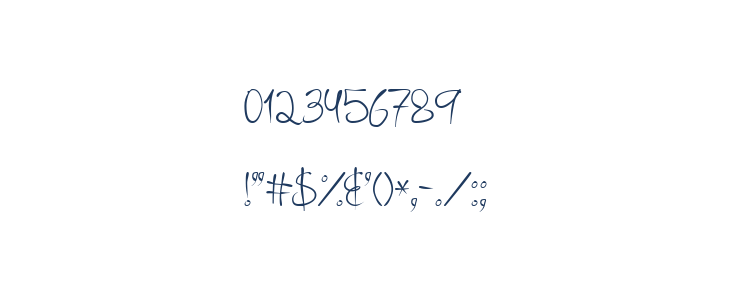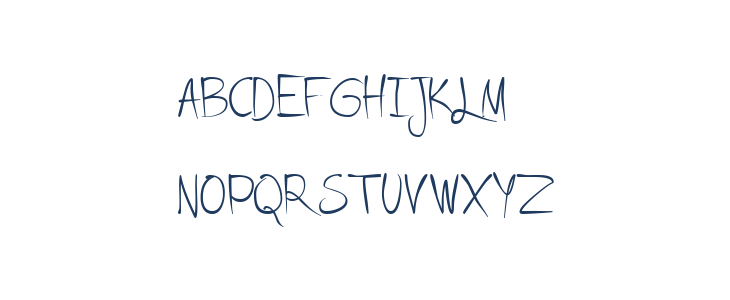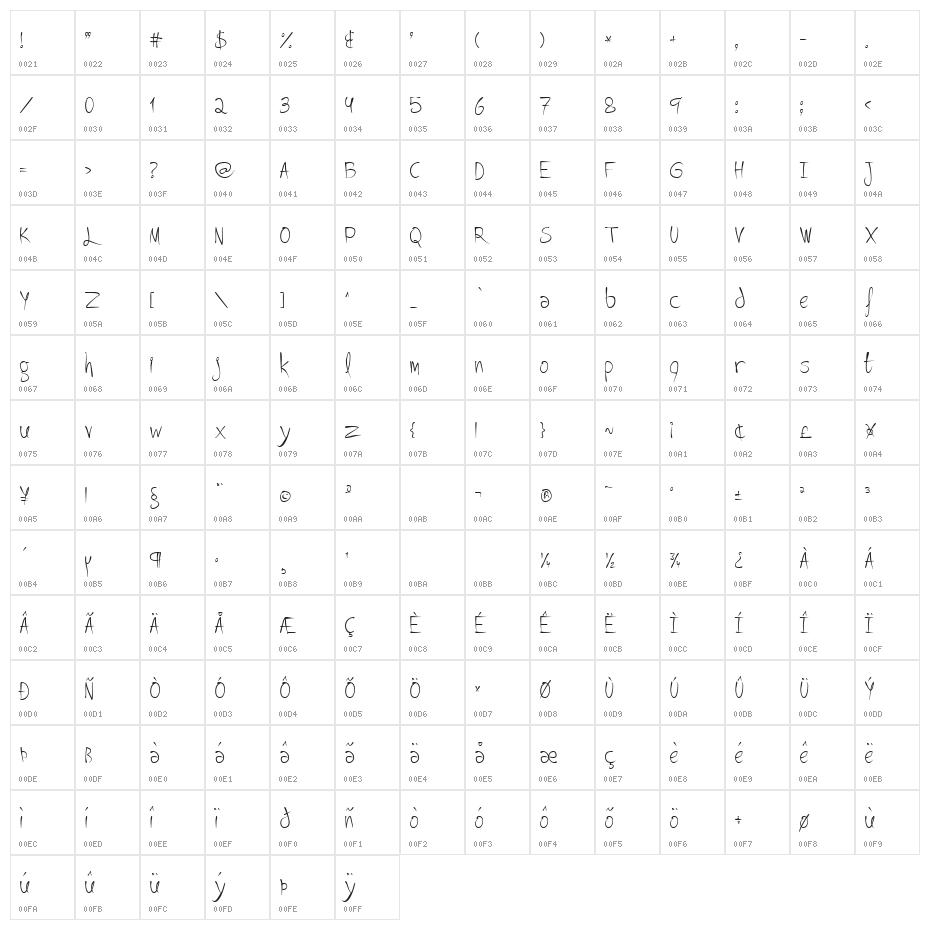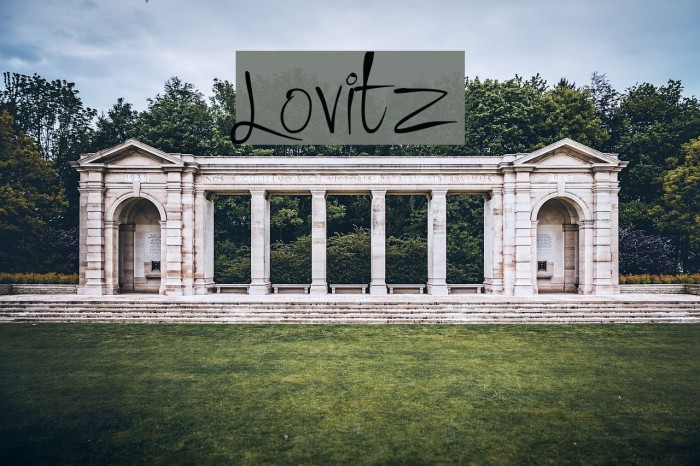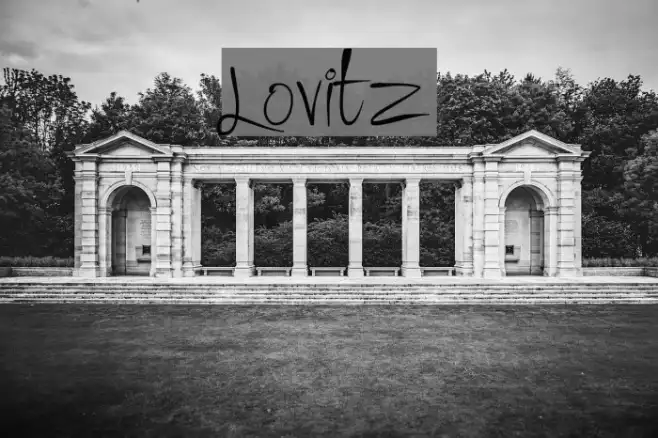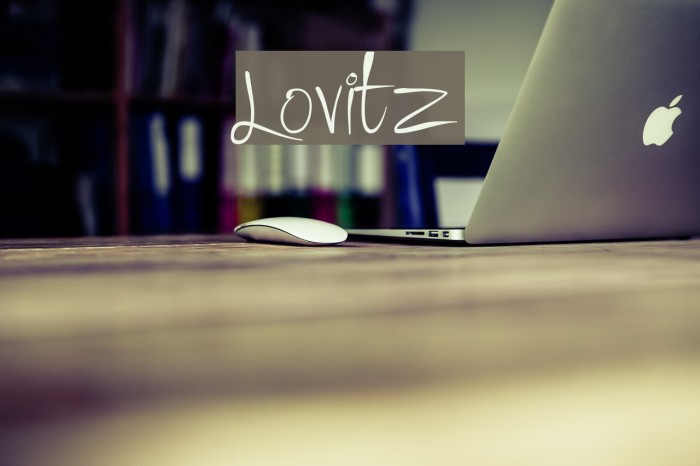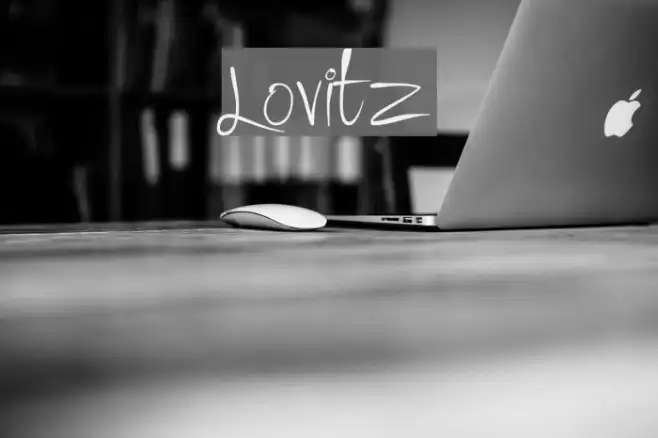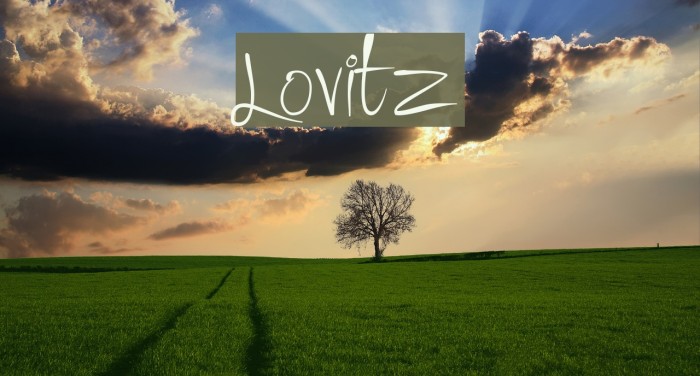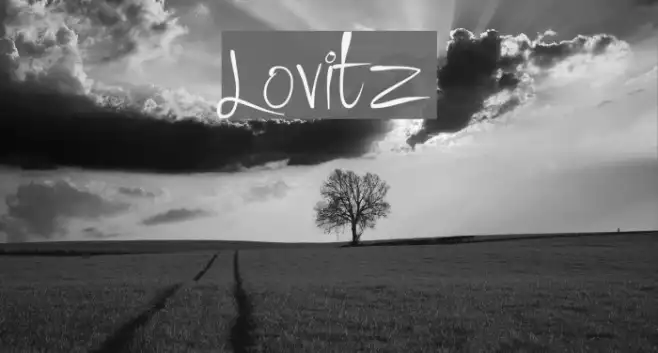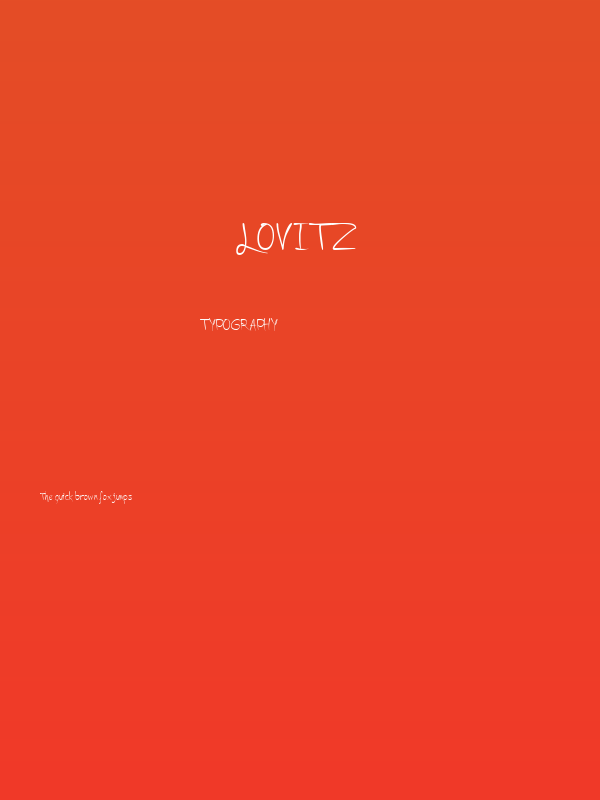
Lovitz Font
Lovitz Description
This font features a playful and whimsical style, characterized by its irregular and slightly exaggerated letterforms. The strokes are uneven, giving it a hand-drawn appearance that adds a personal touch to any design. The uppercase letters are bold and dynamic, while the lowercase letters maintain a consistent flow with quirky loops and curves. The numerals are distinct and match the overall playful aesthetic. Special characters are creatively designed, enhancing the font's unique personality. This font is perfect for projects that require a fun and informal vibe.
| Proposed Projects | Ideal for children's books, greeting cards, playful branding, and creative posters. |